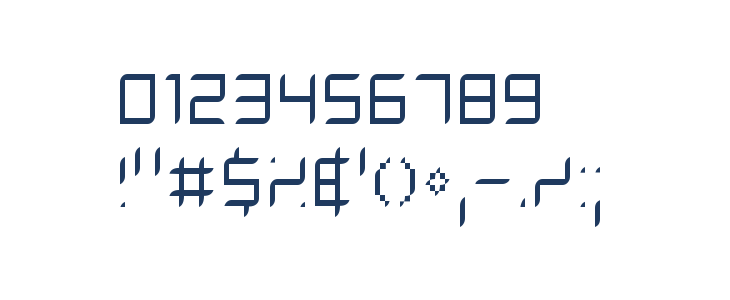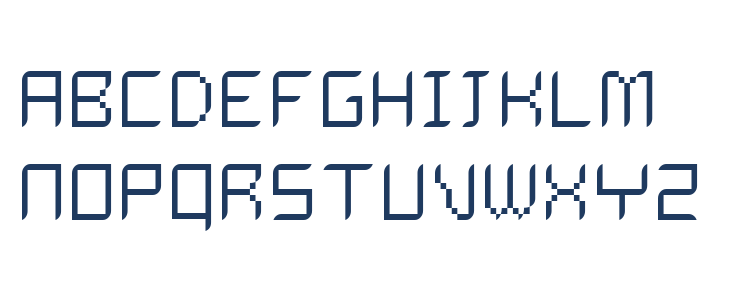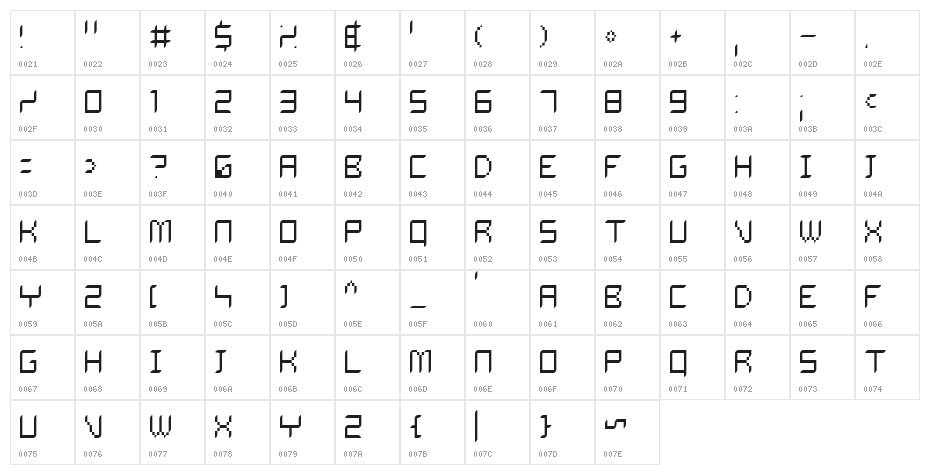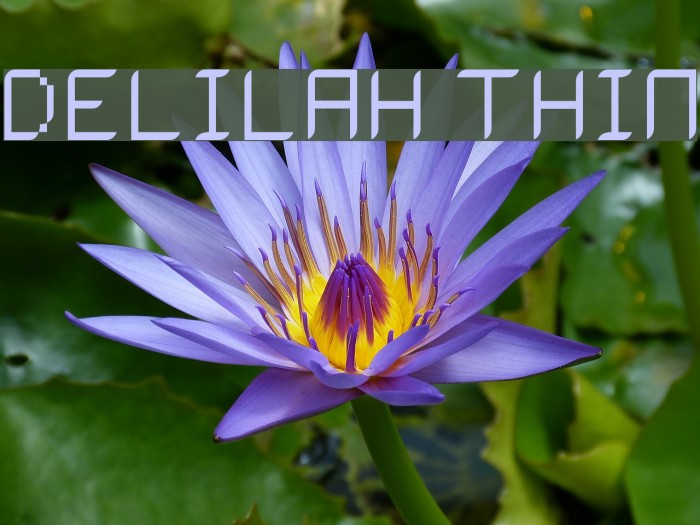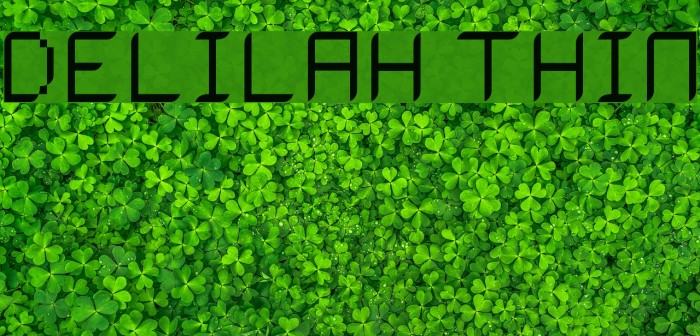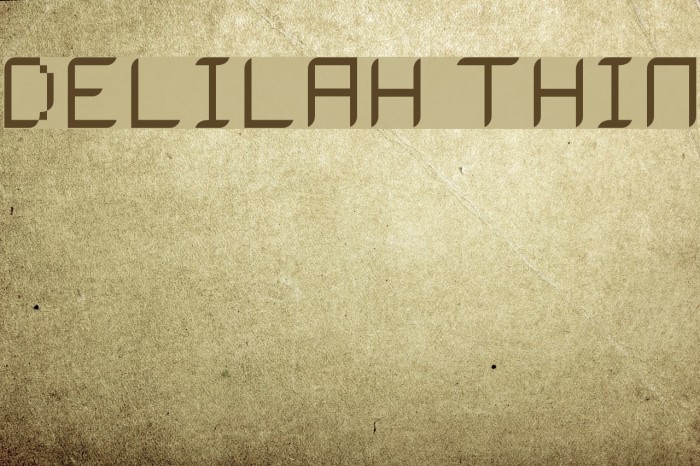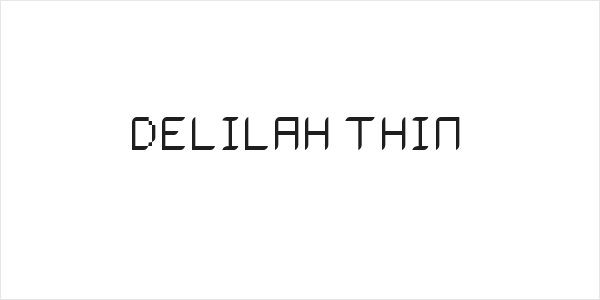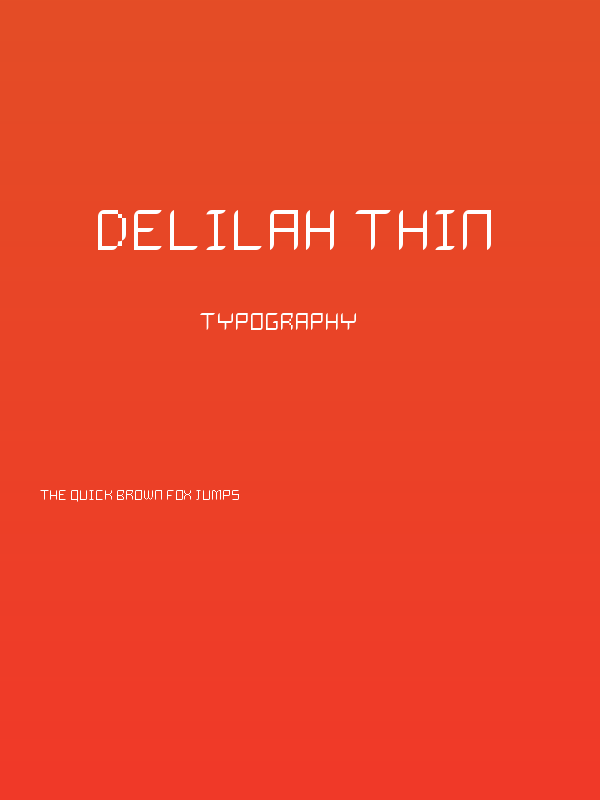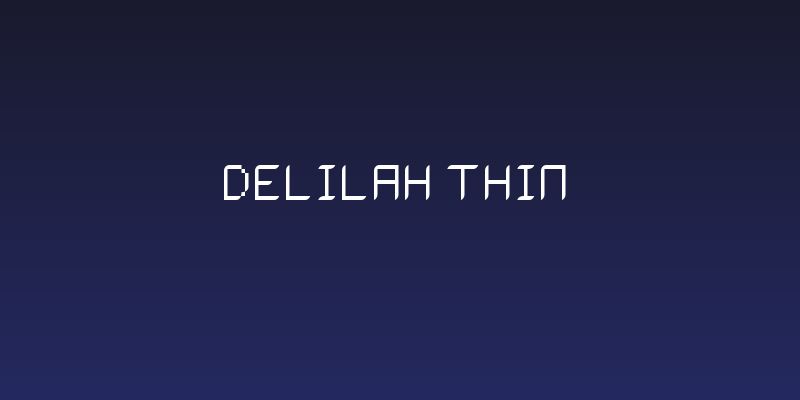
Delilah Thin Font
Delilah Thin Description
This font features a modern, geometric design with a digital aesthetic. The characters are composed of clean, straight lines and sharp angles, giving it a futuristic and technical appearance. The uppercase and lowercase letters maintain a consistent height, contributing to a uniform look. The numerals and special characters follow the same design principles, ensuring cohesion across all elements. The font's structure is minimalistic yet distinct, making it suitable for projects that require a contemporary and innovative touch.
Use CaseLogos, Headlines, Digital interfaces
Proposed ProjectsIdeal for tech branding, digital interfaces, modern posters, and futuristic-themed designs.